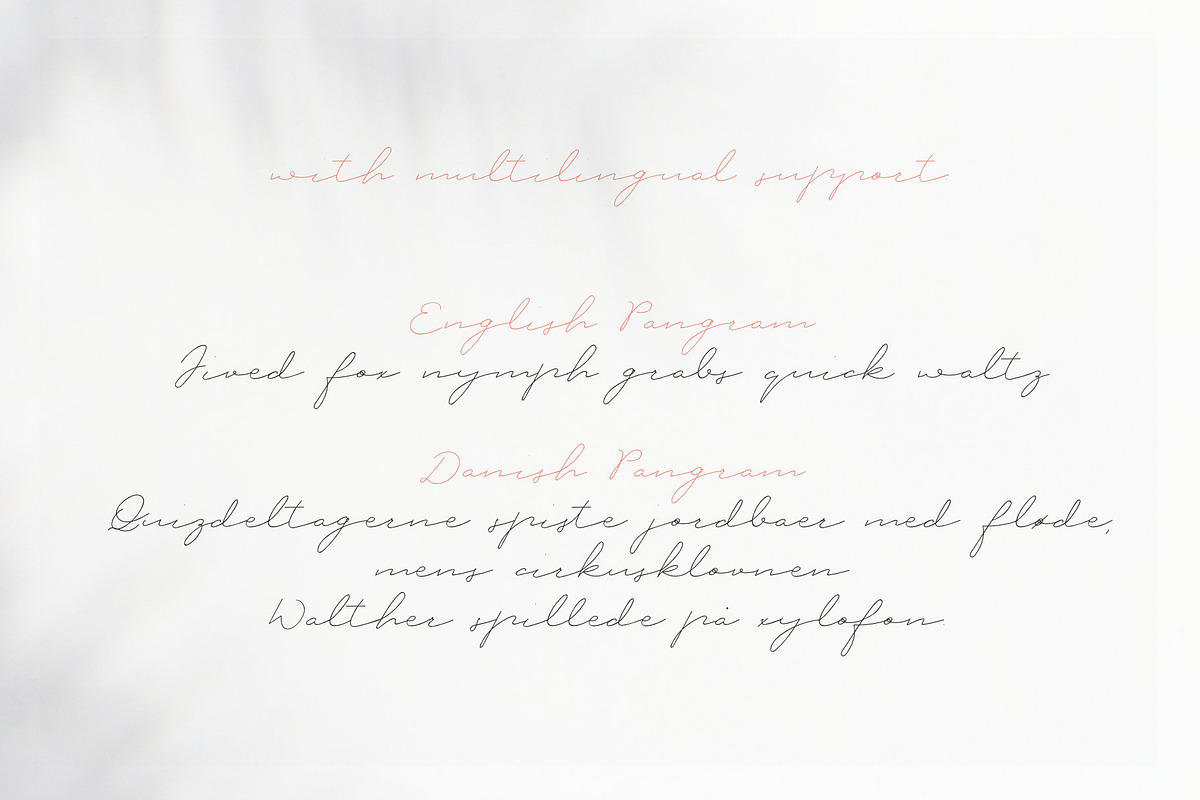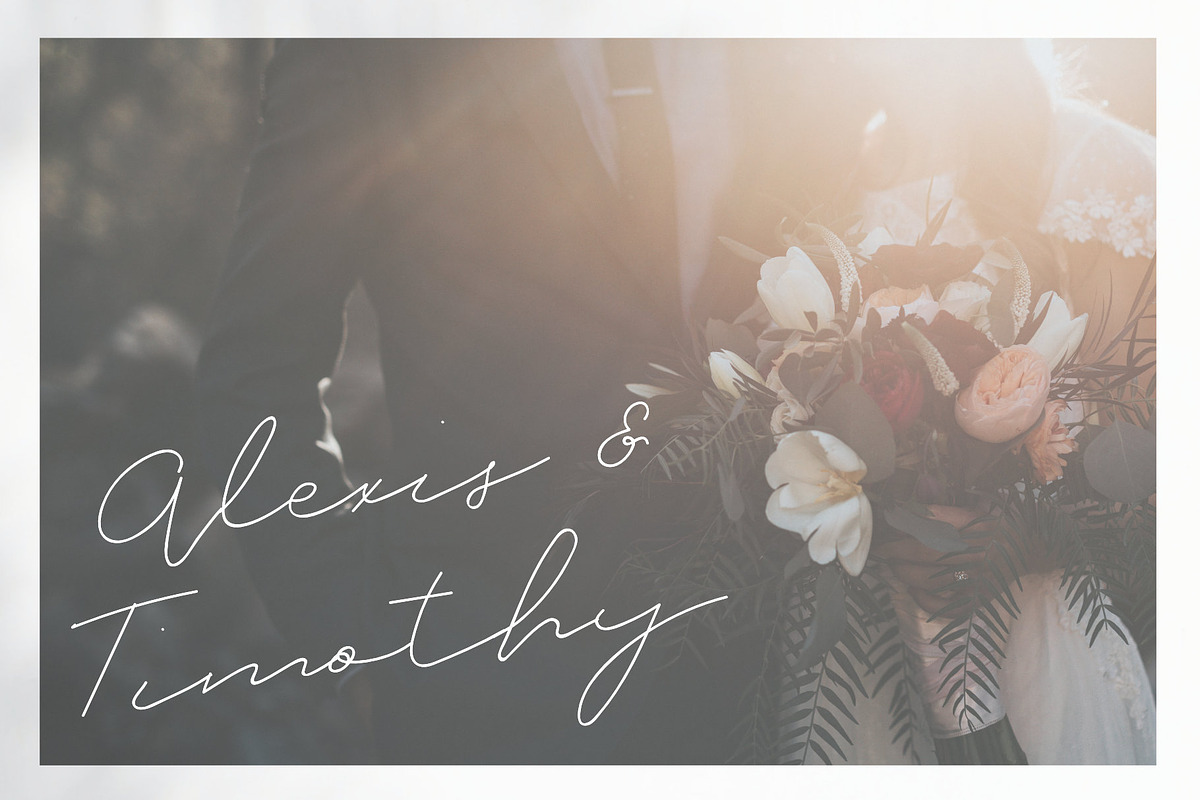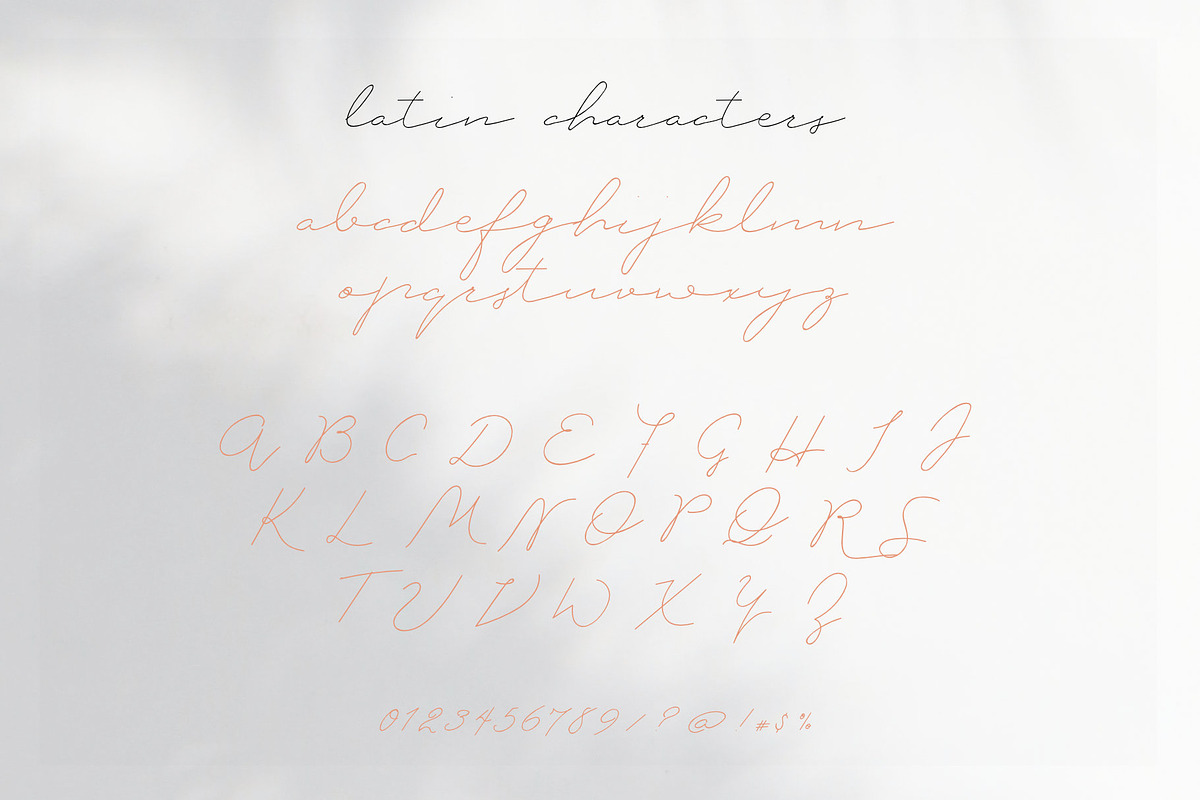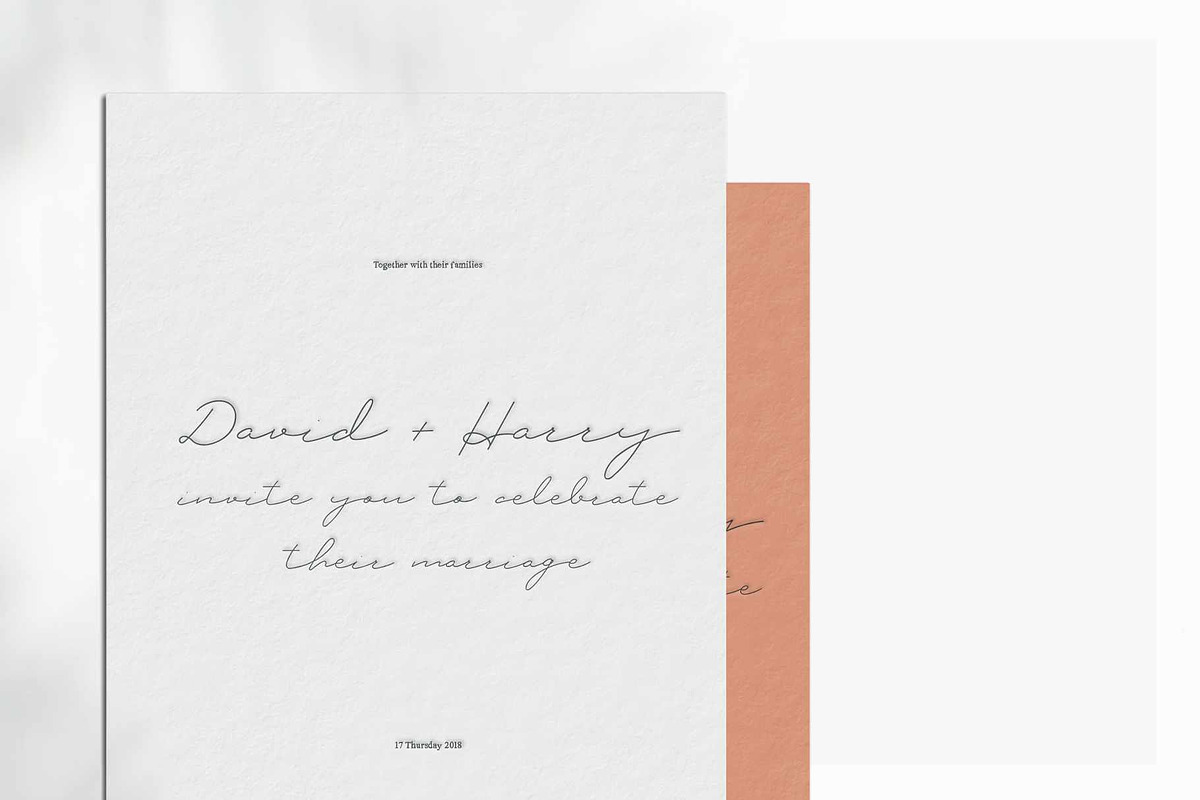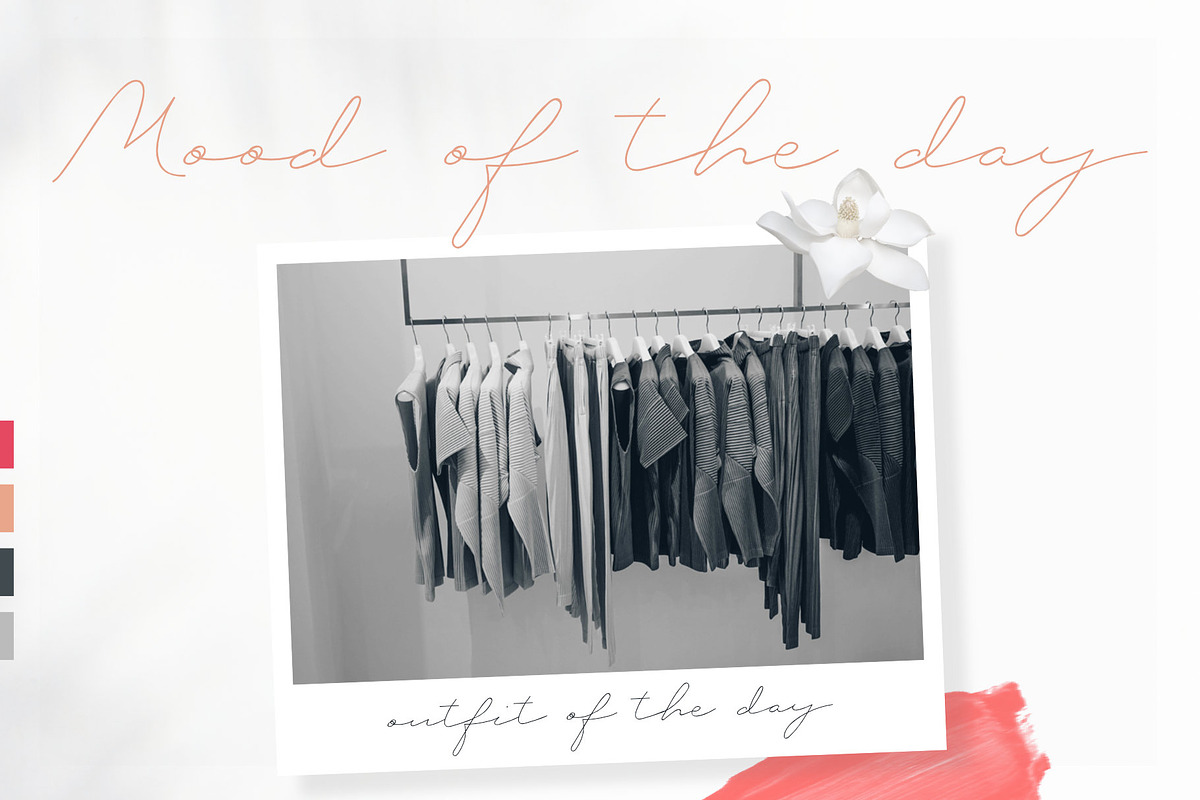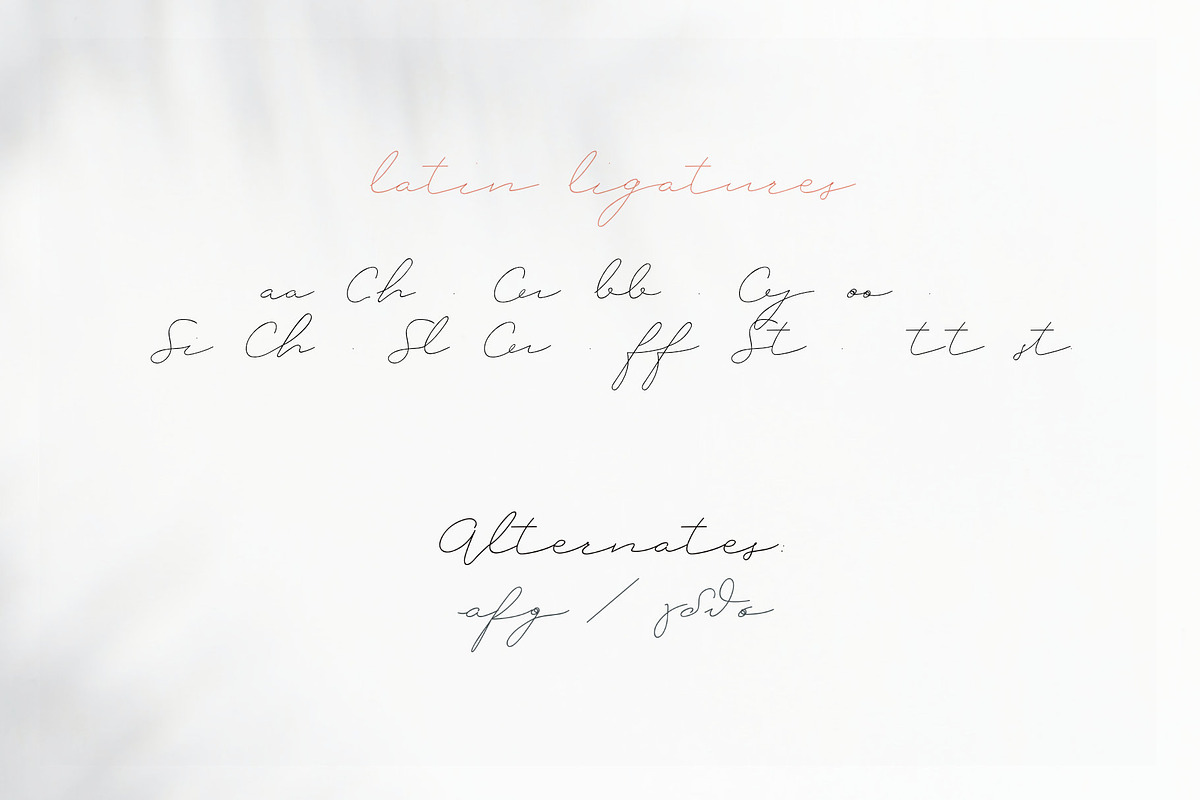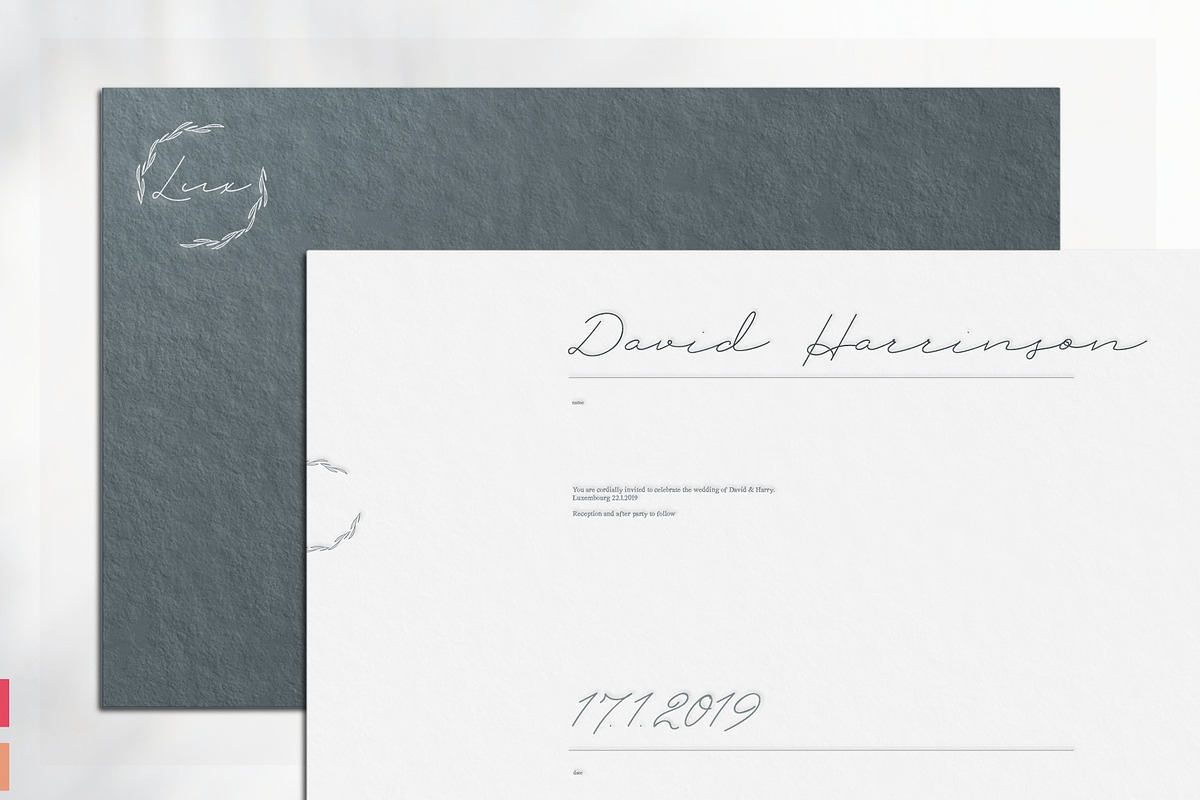
Signature Greek font petit nuage
Petit Nuage Signature Font
The Petit Nuage Signature Font is a signature decorative font with which you can achieve a handwritten-type lettering feeling. Petit Nuage Signature Font it's a multilingual lettering font with Greek (of course), Latin characters and diacritics. This signature style is perfect for your modern graphic design needs. This font has a really nice flow so you use it in a large text if you want to give them a touch of personality. It can be used on social media content, for branding or packaging.
Also, Petit Nuage Signature Font is the ideal typeface for organic products branding and packaging. Additionaly you can use Petit Nuage Signature Font romantic vibes for wedding and baby shower invitation designs. Especially if you are looking for a font for Instagram quote posts or any other social media content, this typeface is for you!
Greek & Latin Ligatures